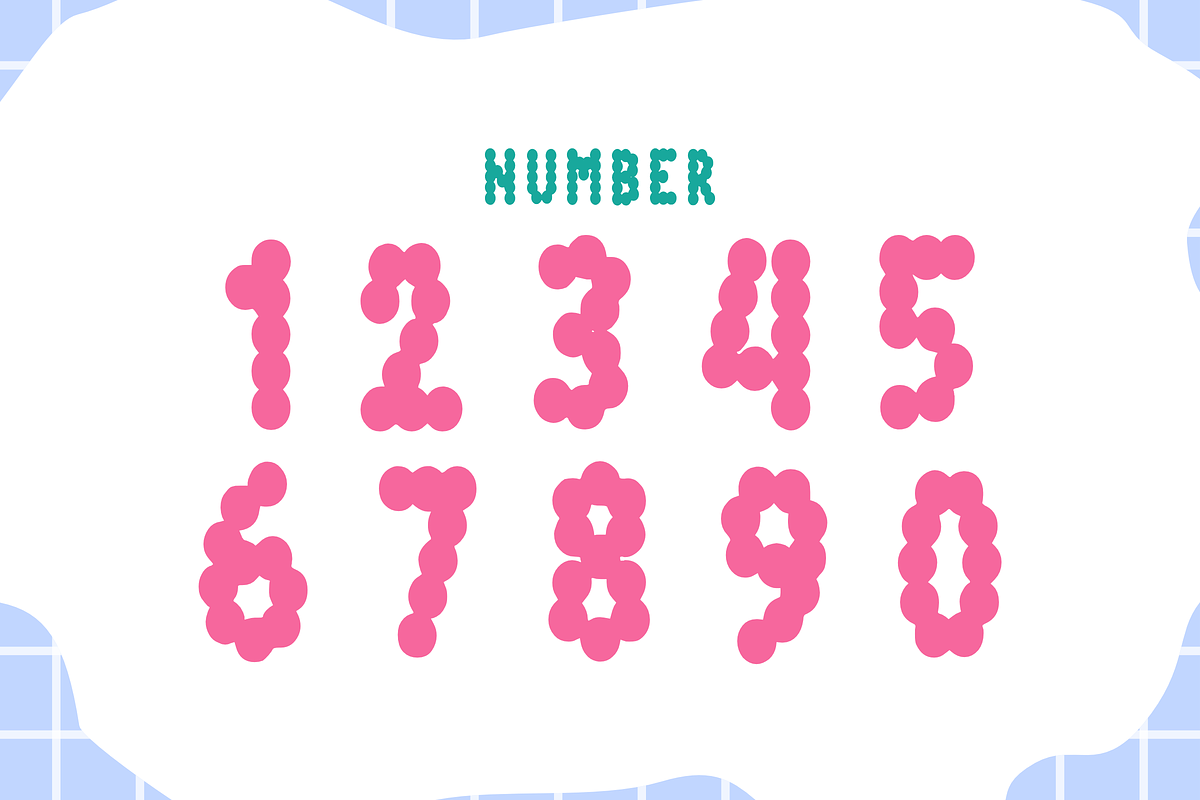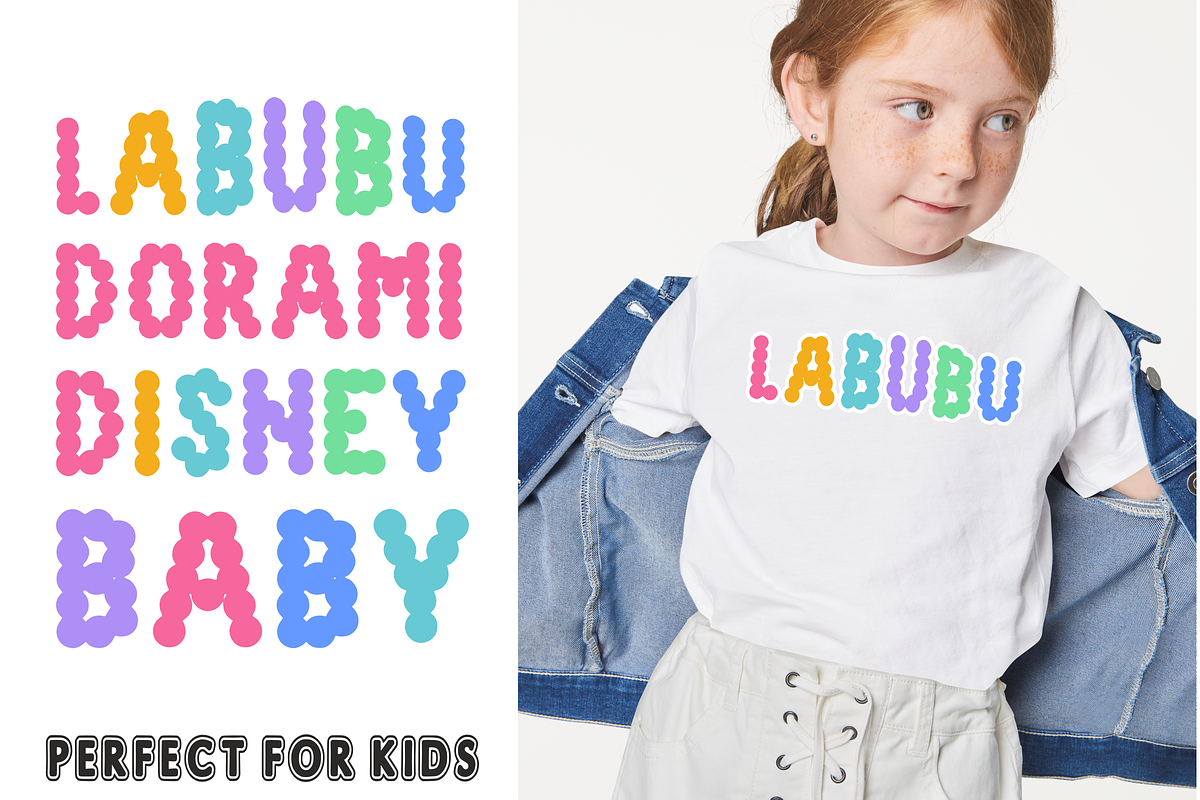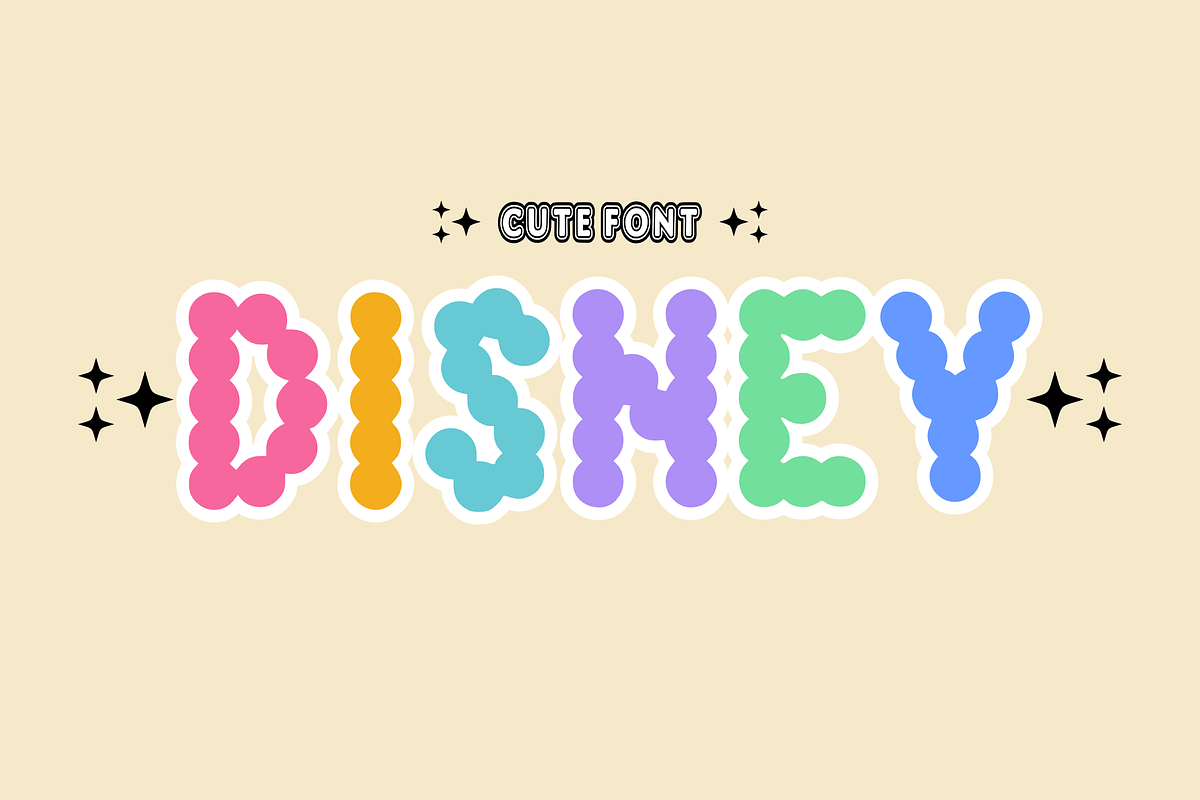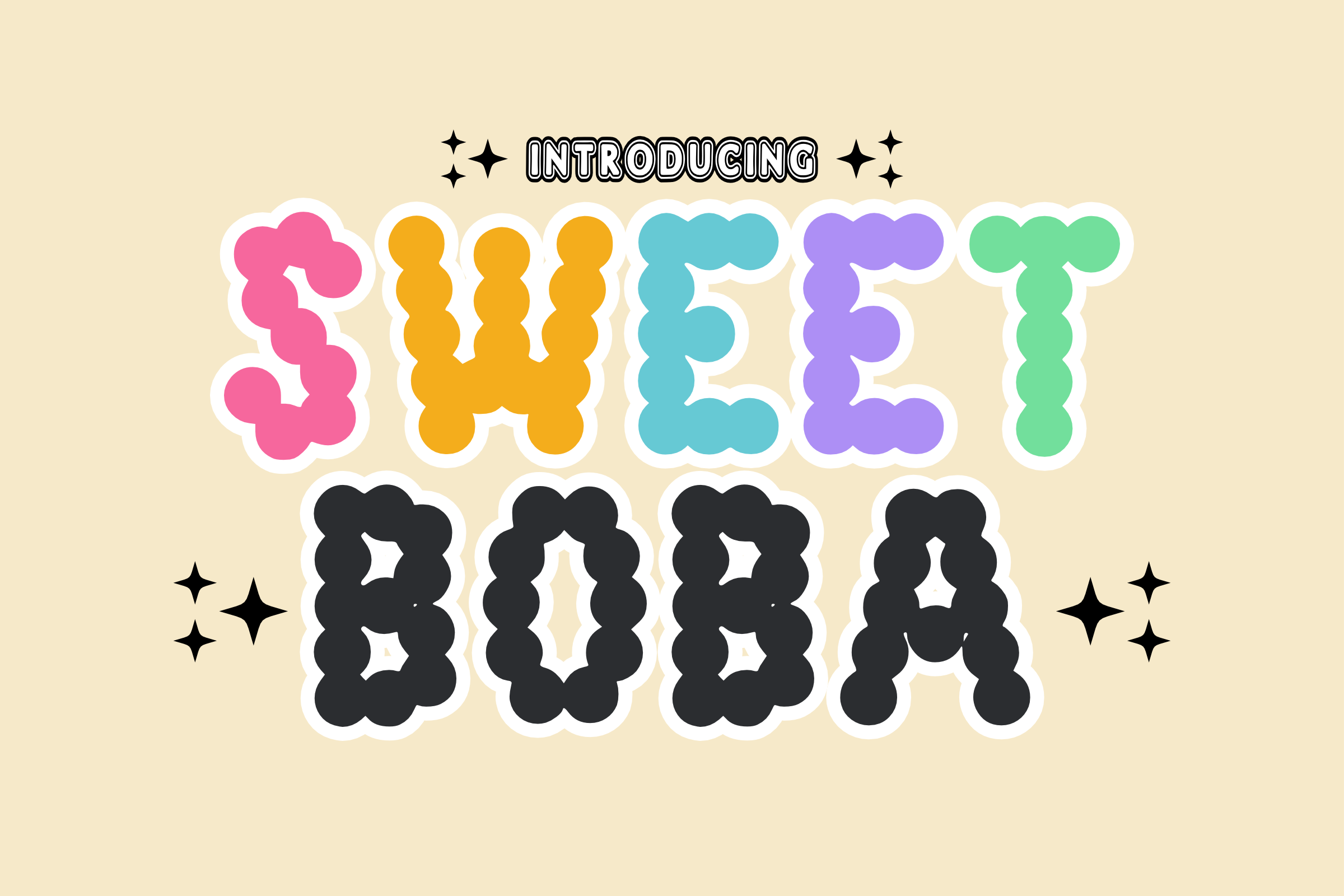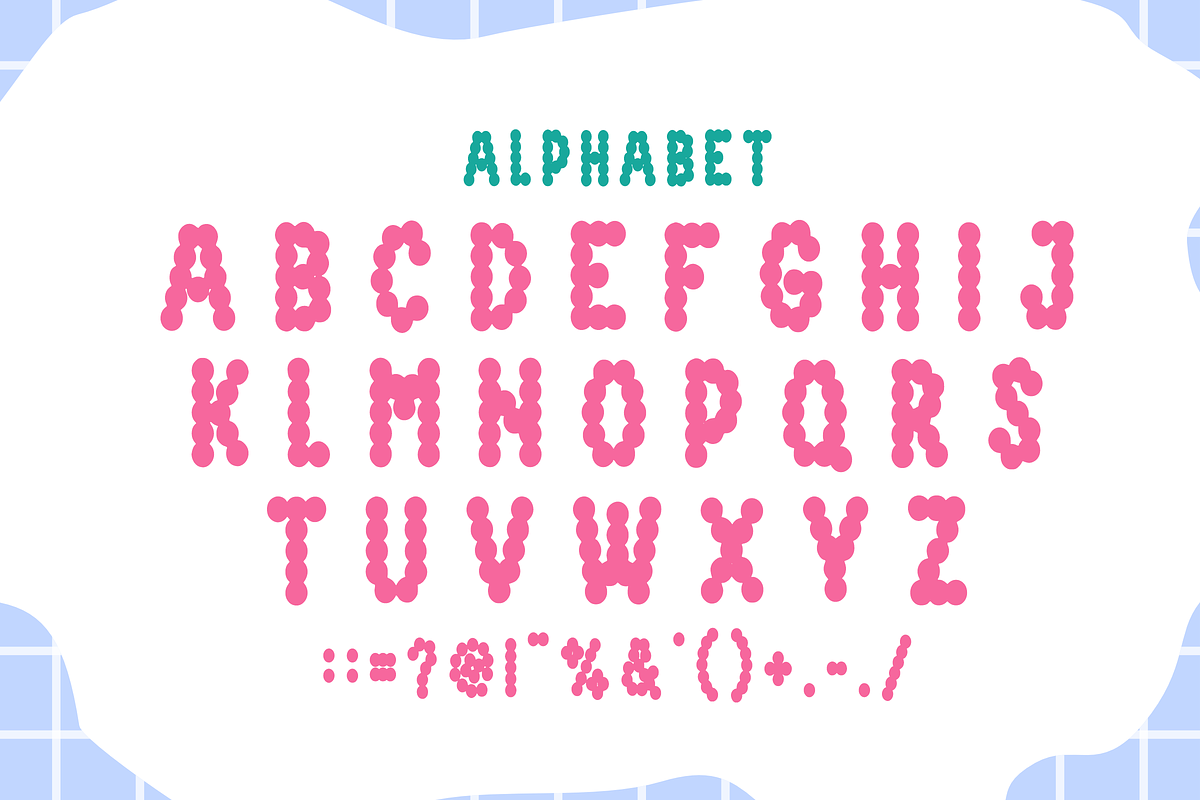
Sweet Boba - Decorative Font
Sweet Boba is a playful bubble font inspired by the joyful shapes of boba pearls and sweet treats. Its rounded, bubbly letterforms create a soft and fun aesthetic that immediately draws attention, while the bold structure ensures readability even in colorful or decorative layouts. With its whimsical charm, Sweet Boba is perfect for children’s projects, product packaging, logos, posters, stickers, and social media graphics.
The font’s unique texture and lively personality make every word feel lighthearted and full of energy, capturing the essence of fun, sweetness, and creativity. Whether you’re designing for playful branding or cheerful event materials, the Sweet Boba font adds a delightful, one-of-a-kind touch that stands out.